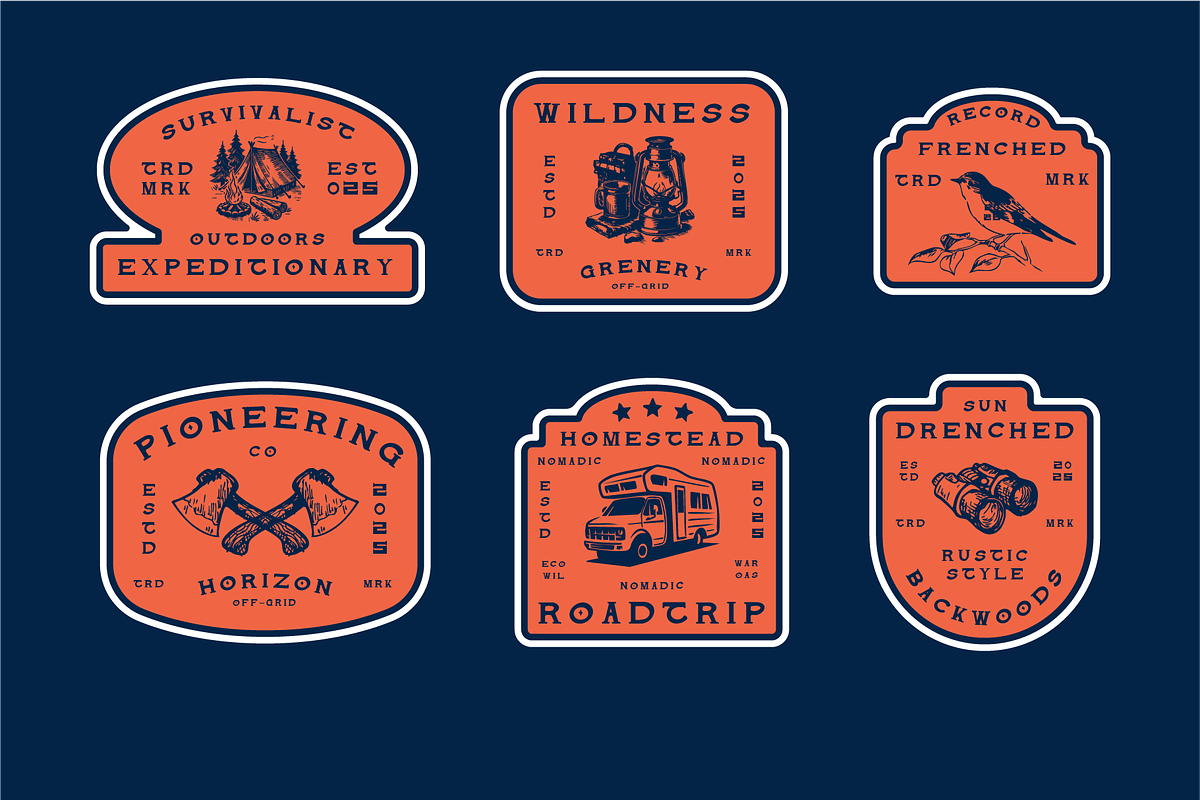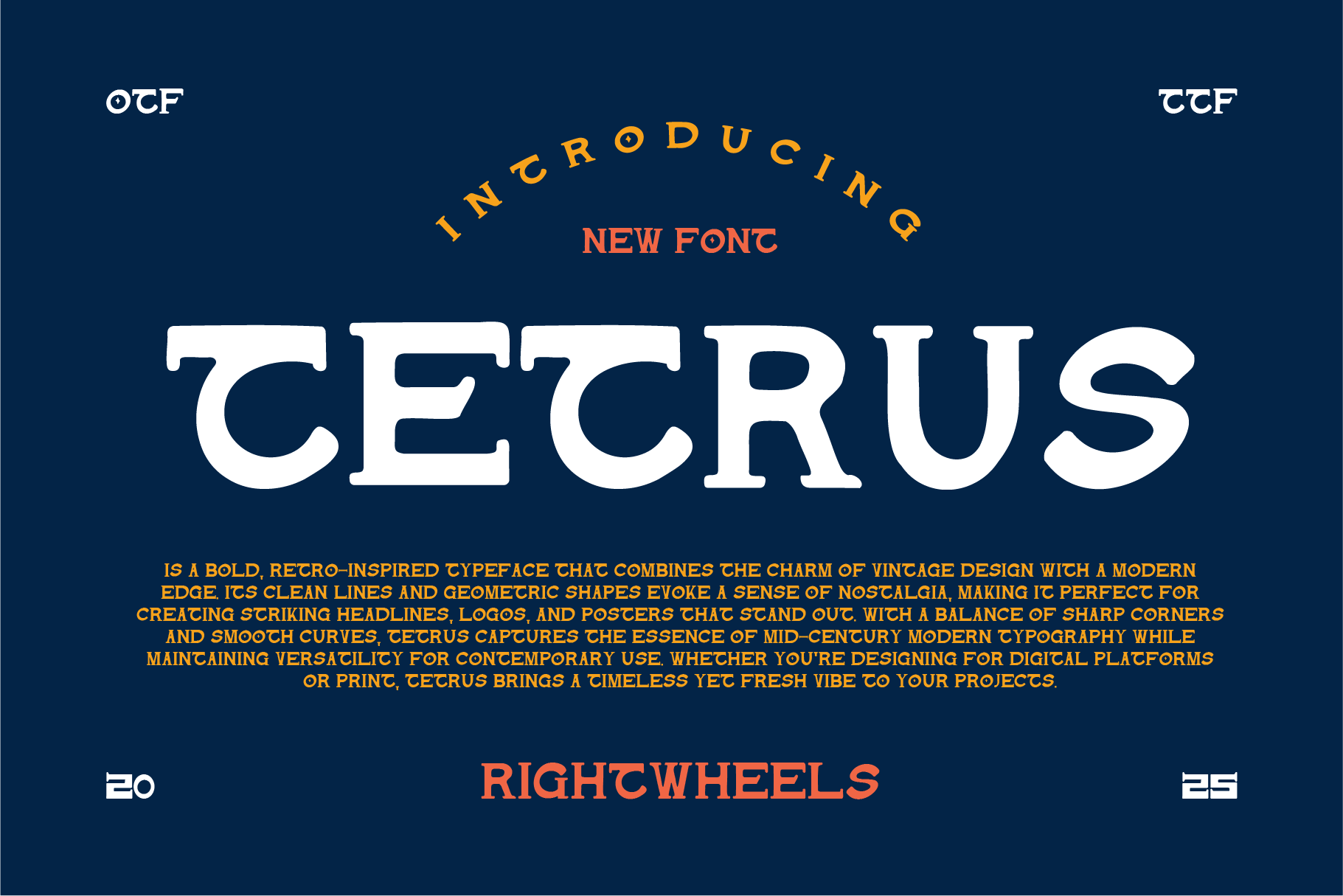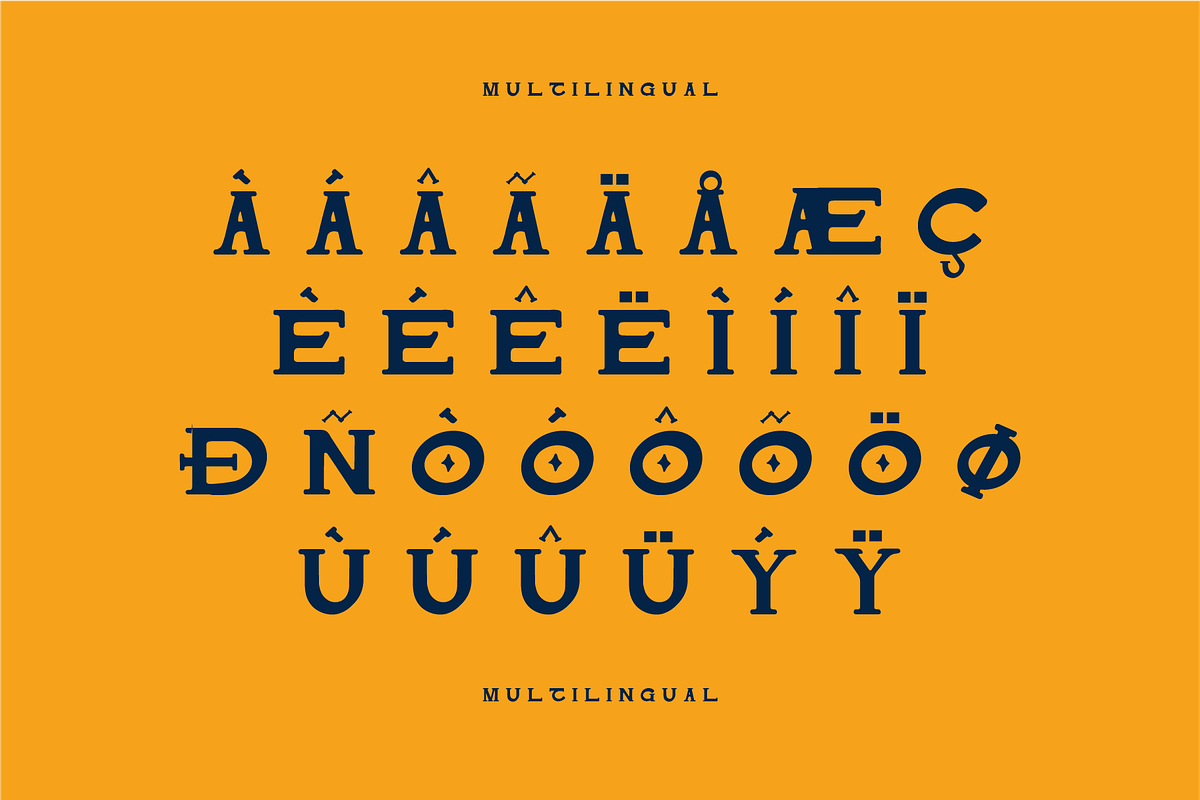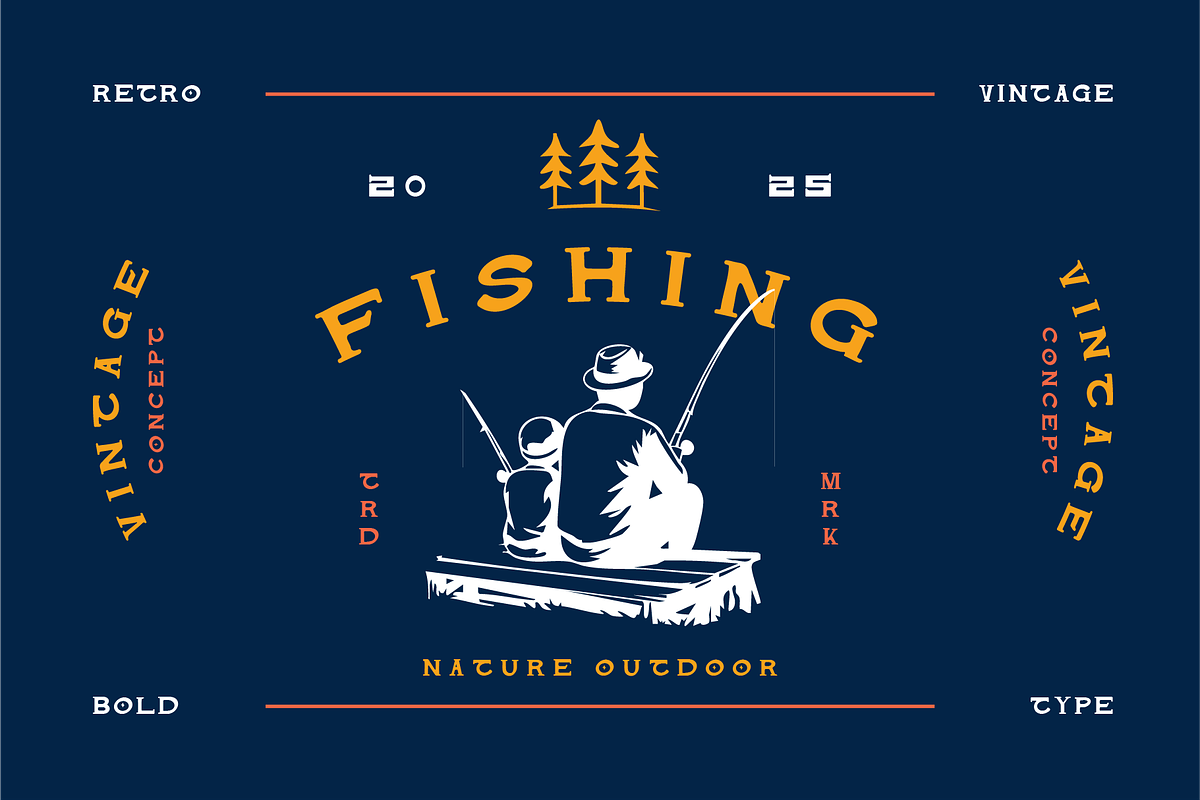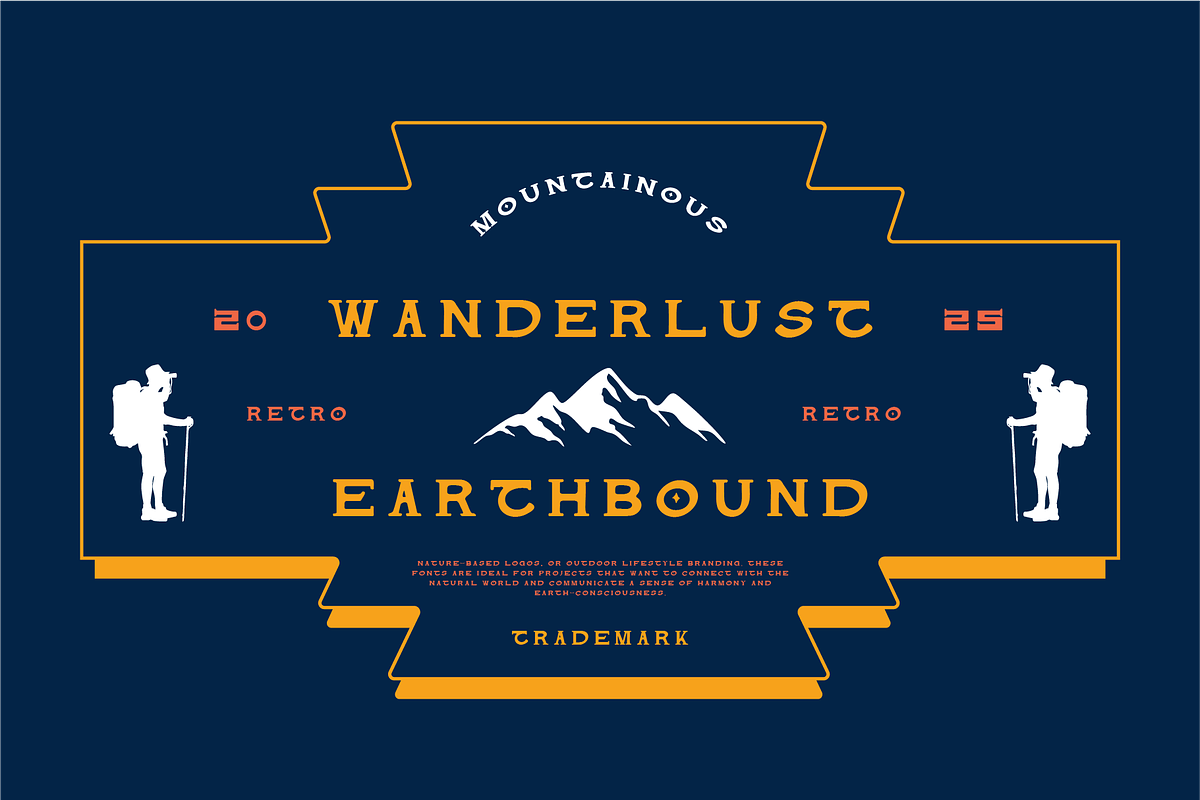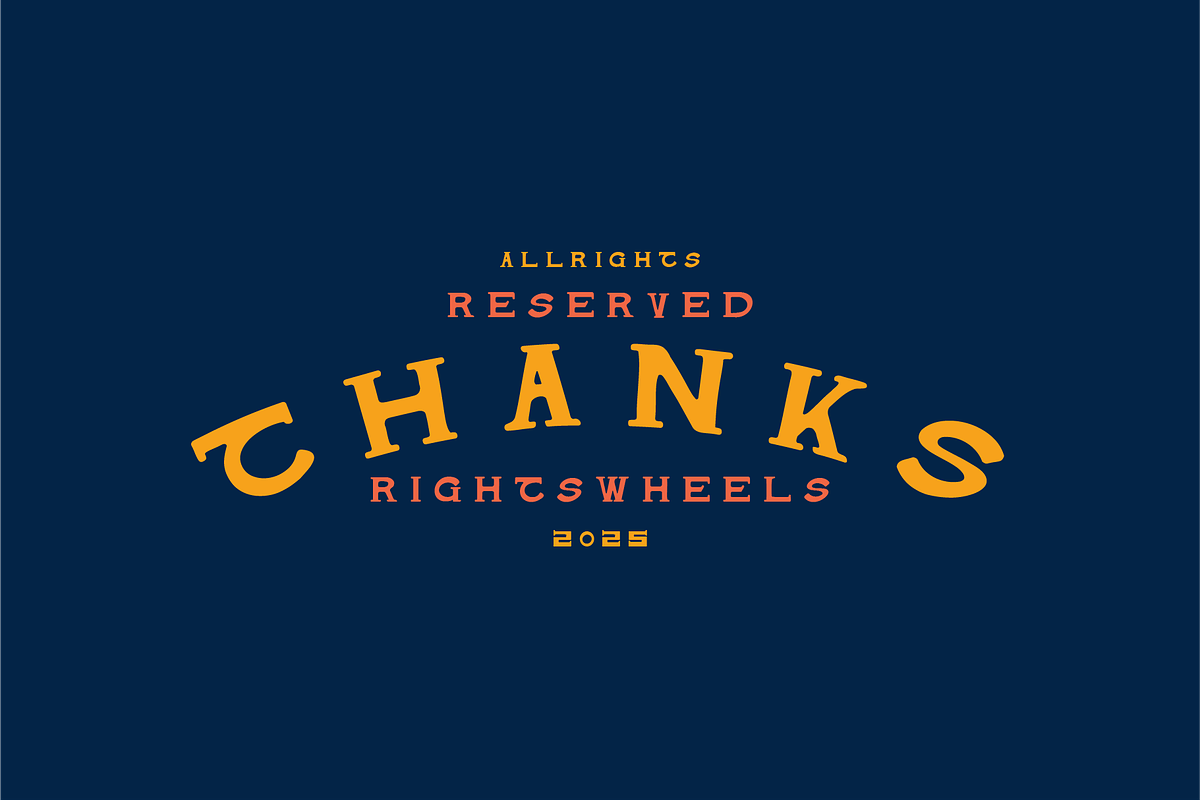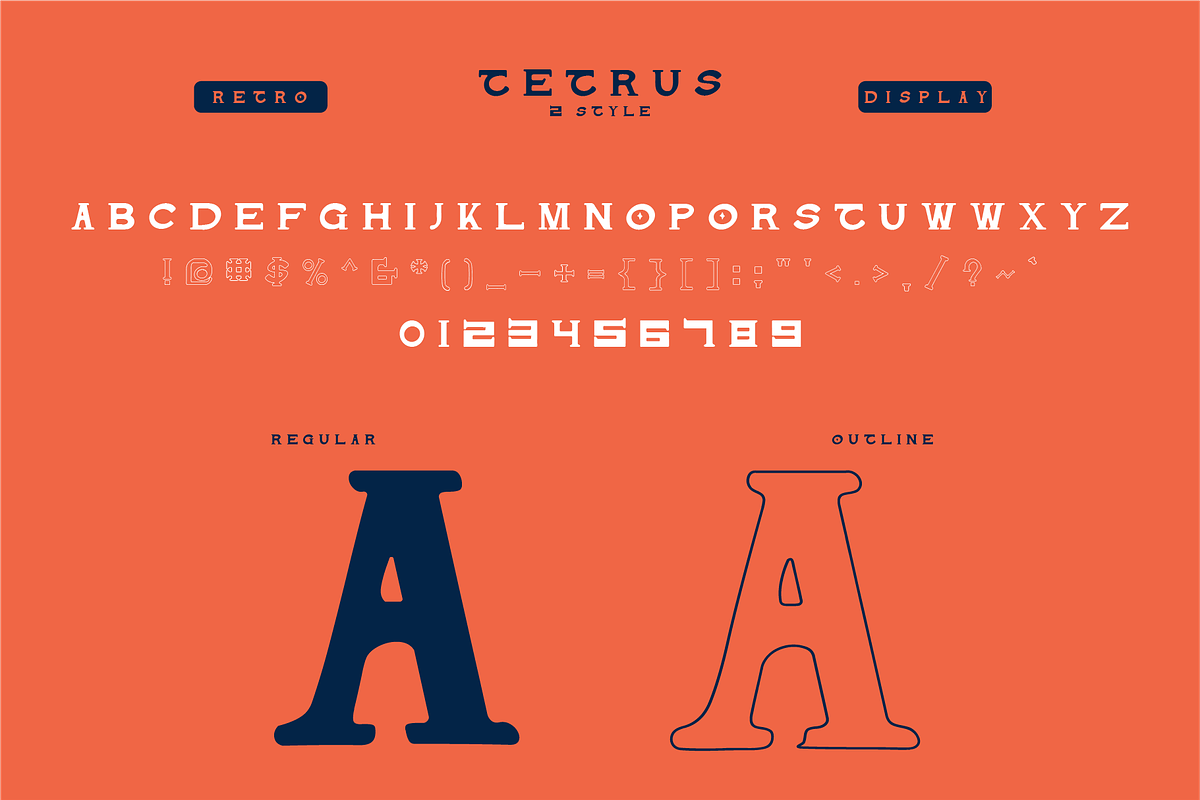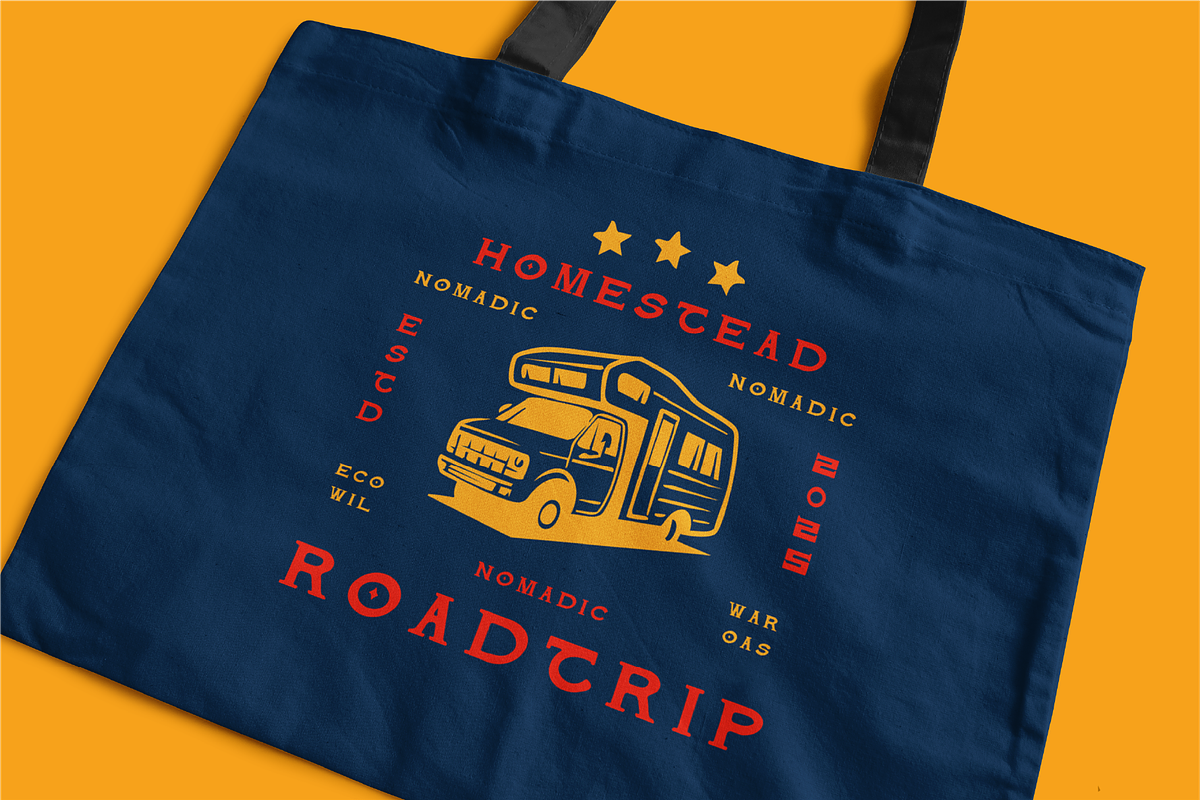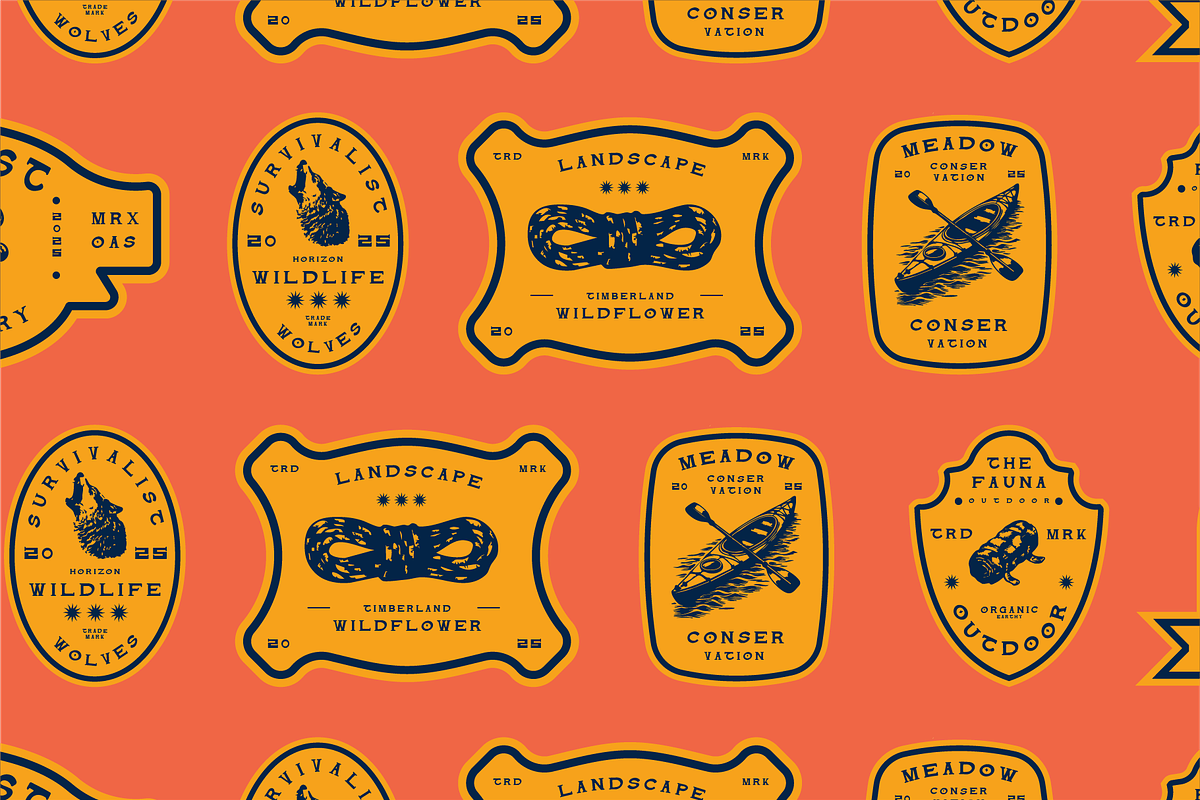
TETRUS - Retro Display Font
Tetrus is a bold, retro-inspired typeface that combines the charm of vintage design with a modern edge. Its clean lines and geometric shapes evoke a sense of nostalgia, making it perfect for creating striking headlines, logos, and posters that stand out. With a balance of sharp corners and smooth curves, Tetrus captures the essence of mid-century modern typography while maintaining versatility for contemporary use. Whether you're designing for digital platforms or print, Tetrus brings a timeless yet fresh vibe to your projects.